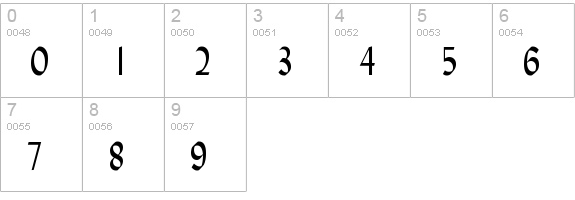
Lynda Condensed Normal is the standard, neutral, condensed-width variant in the Lynda typeface family \xE2\x80\x94 well suited to general body text, paragraphs, and standard typographic work.
Lynda Condensed Normal font is a sleek and modern typeface that exudes sophistication and professionalism. Its clean lines and minimalist design make it versatile for a wide range of projects, from branding to editorial design. The condensed style of this font adds a touch of elegance while maintaining readability in both print and digital formats. What sets Lynda Condensed Normal font apart is that it is available for free download at FontsMarket.com. This means you can easily access this high-quality font without any cost, making it a valuable addition to your font library. Whether you're working on a business presentation, website design, or any creative project, Lynda Condensed Normal font is a reliable choice that will elevate your work with its timeless appeal. Download it today and start creating stunning designs effortlessly.